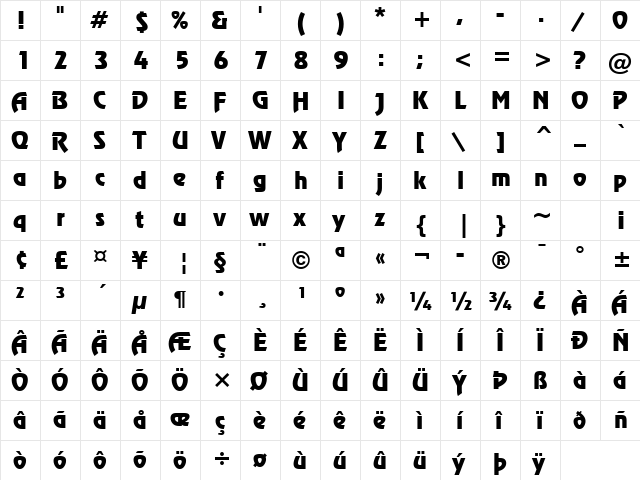
Mortal Kombat Regular
Design Context for Mortal Kombat Typeface
Mortal Kombat takes a measured approach to typography — its balanced proportions and neutral character make it a reliable workhorse for both digital and print work.